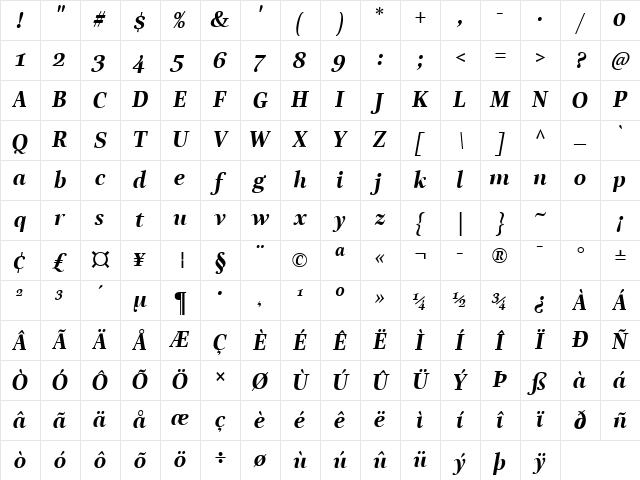
LTReally Medium Bold Italic
Design Context for LTReally Medium
LTReally Medium is a composed and adaptable typeface that performs quietly and consistently across a wide range of design contexts. The slanted form adds forward momentum and visual energy. Its bold stroke weight gives it real presence on the page.
Pro Tip: Use LTReally Medium for emphasis, pull quotes, and subheadings where its slanted energy can add rhythm to the layout.